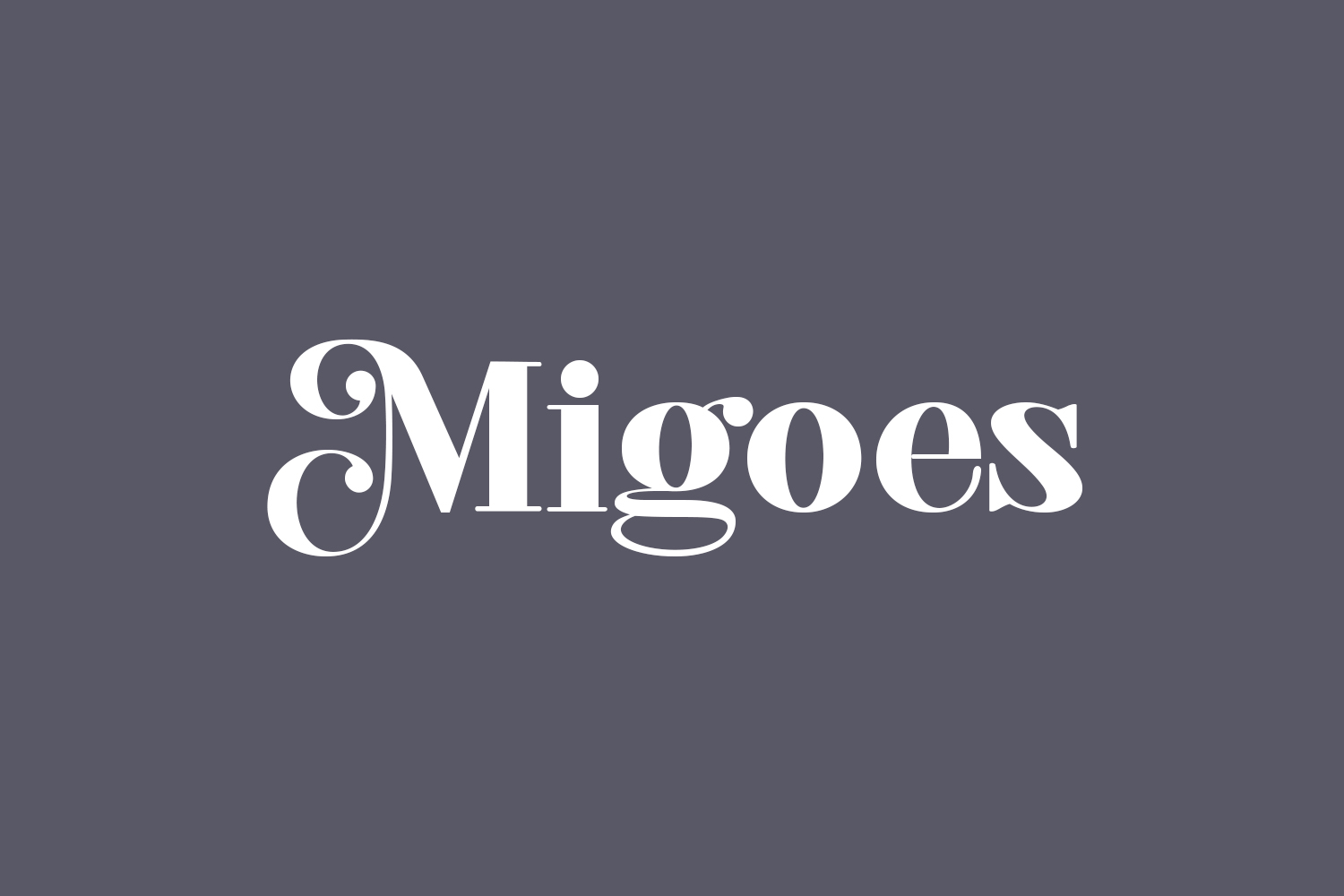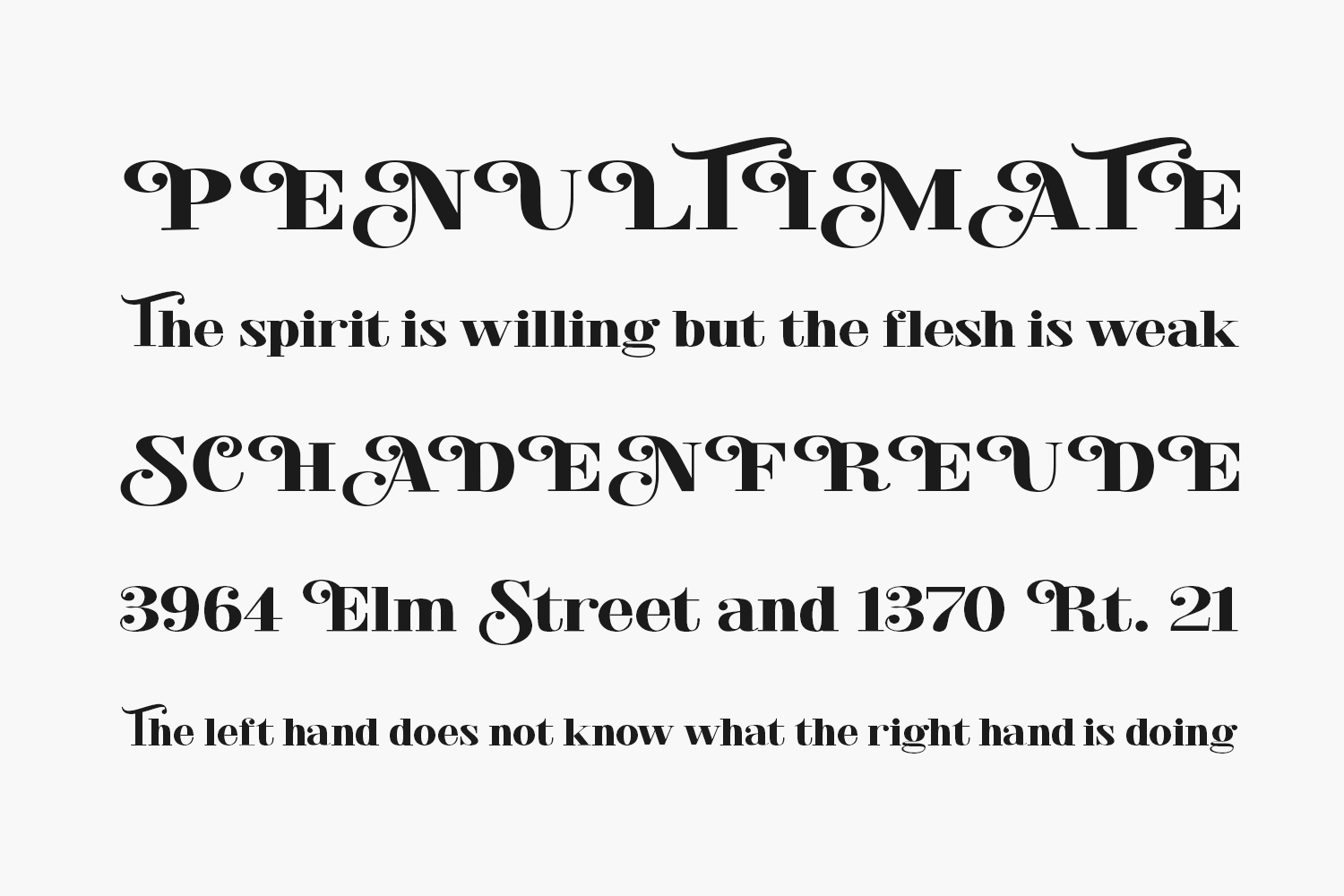
Discover Migoes Free Font, a contemporary serif font exuding a vintage and sophisticated charm. Tailor-made for logo design, apparel branding, packaging, magazine titles, advertisements, T-shirts, postcards, and beyond. Elevate your creative projects with Migoes and watch them command attention. Migoes Free Font is free for personal use only. Please purchase the full version for commercial use.
Designed by Gatype